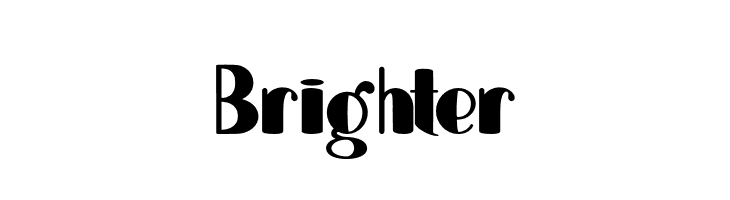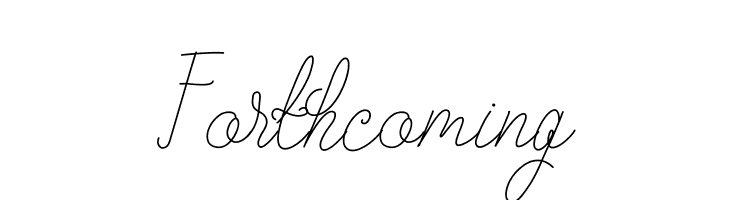
A playful, heart-patterned decorative font with a hand-drawn style.
An elegant script font with flowing, cursive lines and ornate uppercase letters.
A modern sans-serif font with geometric shapes and sharp edges.
A playful, hand-drawn font with elegant curves and whimsical style.
An elegant script font with intricate swashes and decorative flourishes.
A bold, playful font with geometric and organic elements.
A refined, cursive script font with flowing, connected characters and thin strokes.
An elegant script font with flowing, cursive letterforms and intricate swashes.
A playful, hand-drawn 3D outline font with a whimsical and casual style.
A playful and whimsical font with rounded, flowing letterforms.